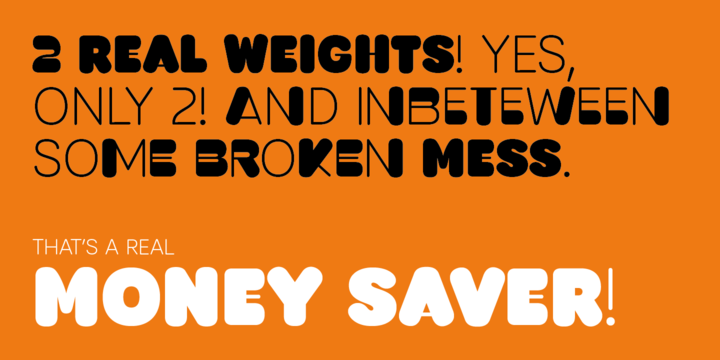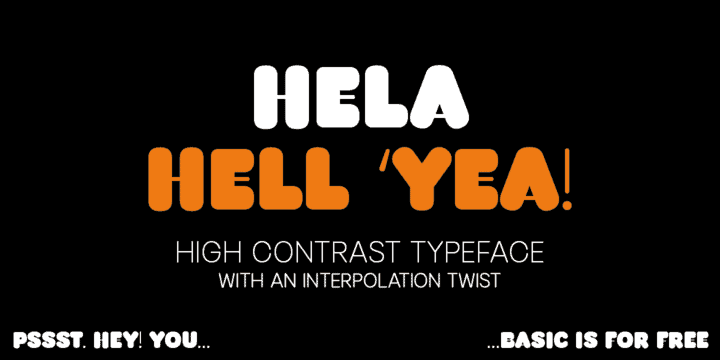
Hela Dysplay Font Family
Hela Dysplay Font Family – Free Demo
This is bold display font, geometric, shape and doodle of this typeface add more fun to your design. It really feels good for display and greetings. Introducing Hela Font. Hela is a high contrast rounded font with interpolation twist. Hela comes from lettering of an old Czech textile company called Helana, which does not exist anymore, but the signage is still on the building. The weird thing on this font is that it does not add weight on every stem from Light to Black as usual, but rather adds more and more black stems to the light skeleton.